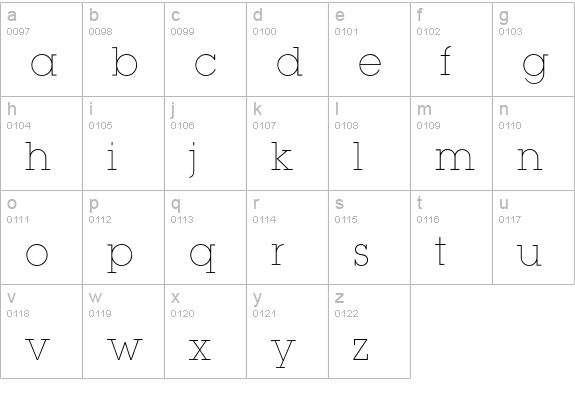
Lubalin Graph* Extra Light Font Details
Lubalin Graph* Extra Light is a refined, elegant variant in the Lubalin typeface family \xE2\x80\x94 well suited to elegant body text, refined sub-headings, and luxury branding.
Lubalin Graph Extra Light font is a sleek and modern typeface that exudes elegance and sophistication. Its delicate weight and clean lines make it perfect for projects that require a subtle and refined touch. The thin strokes and wide letterforms give this font a unique and timeless appeal that is sure to make your designs stand out. What's even better is that Lubalin Graph Extra Light font is available for free download at FontsMarket.com. You can easily access this stunning font and use it in your personal or commercial projects without any cost. Take advantage of this opportunity to enhance your designs with the beauty and grace of Lubalin Graph Extra Light font today!